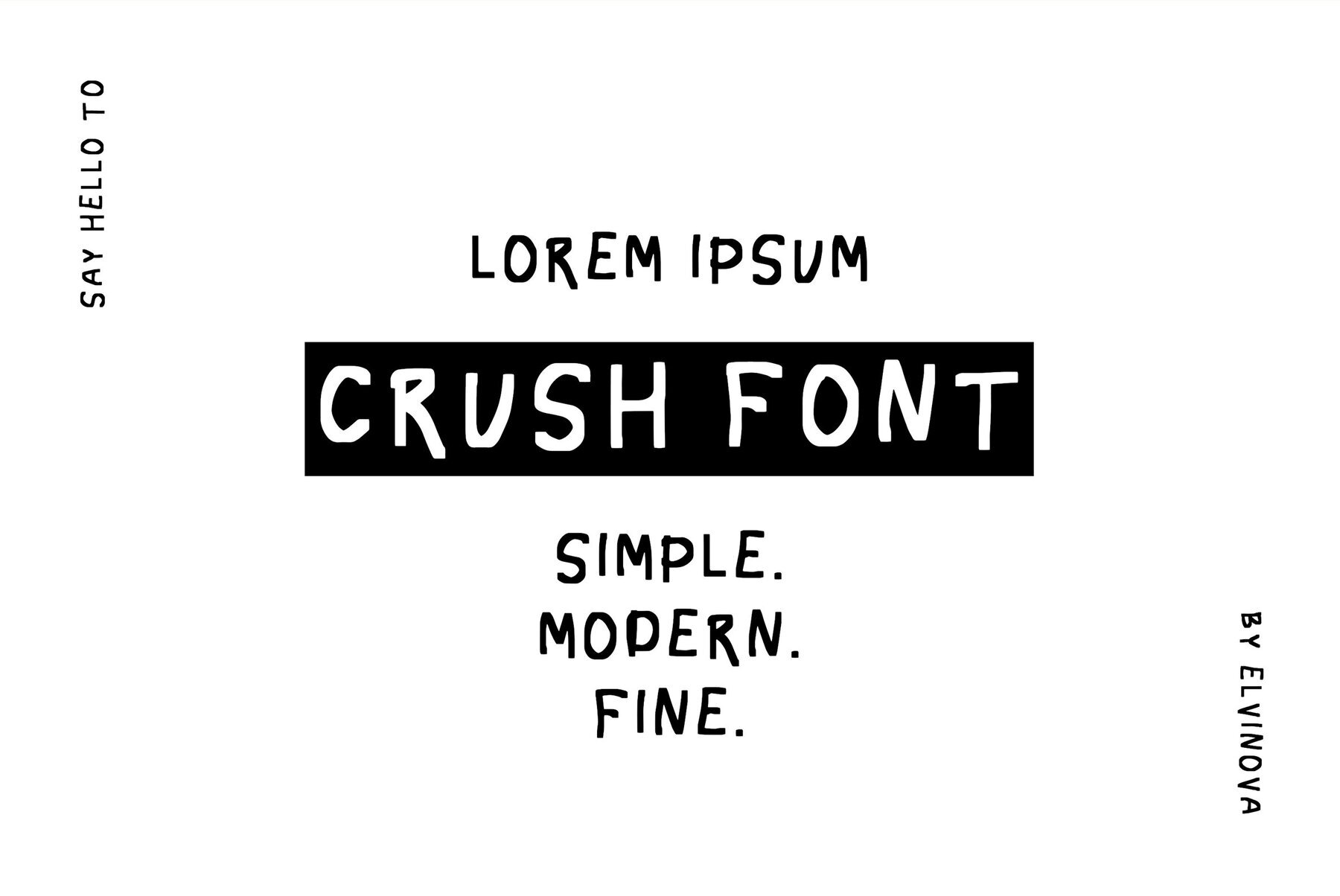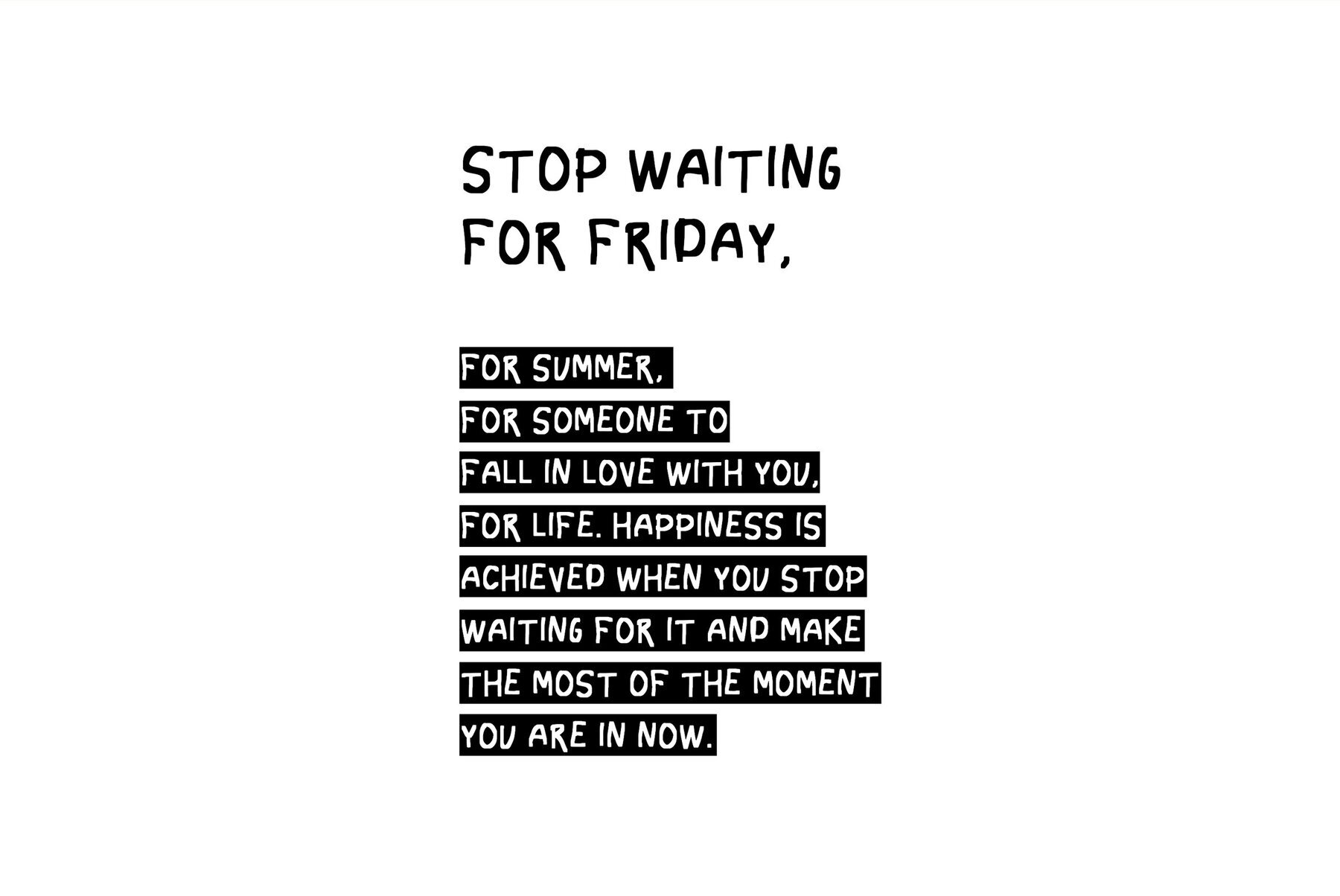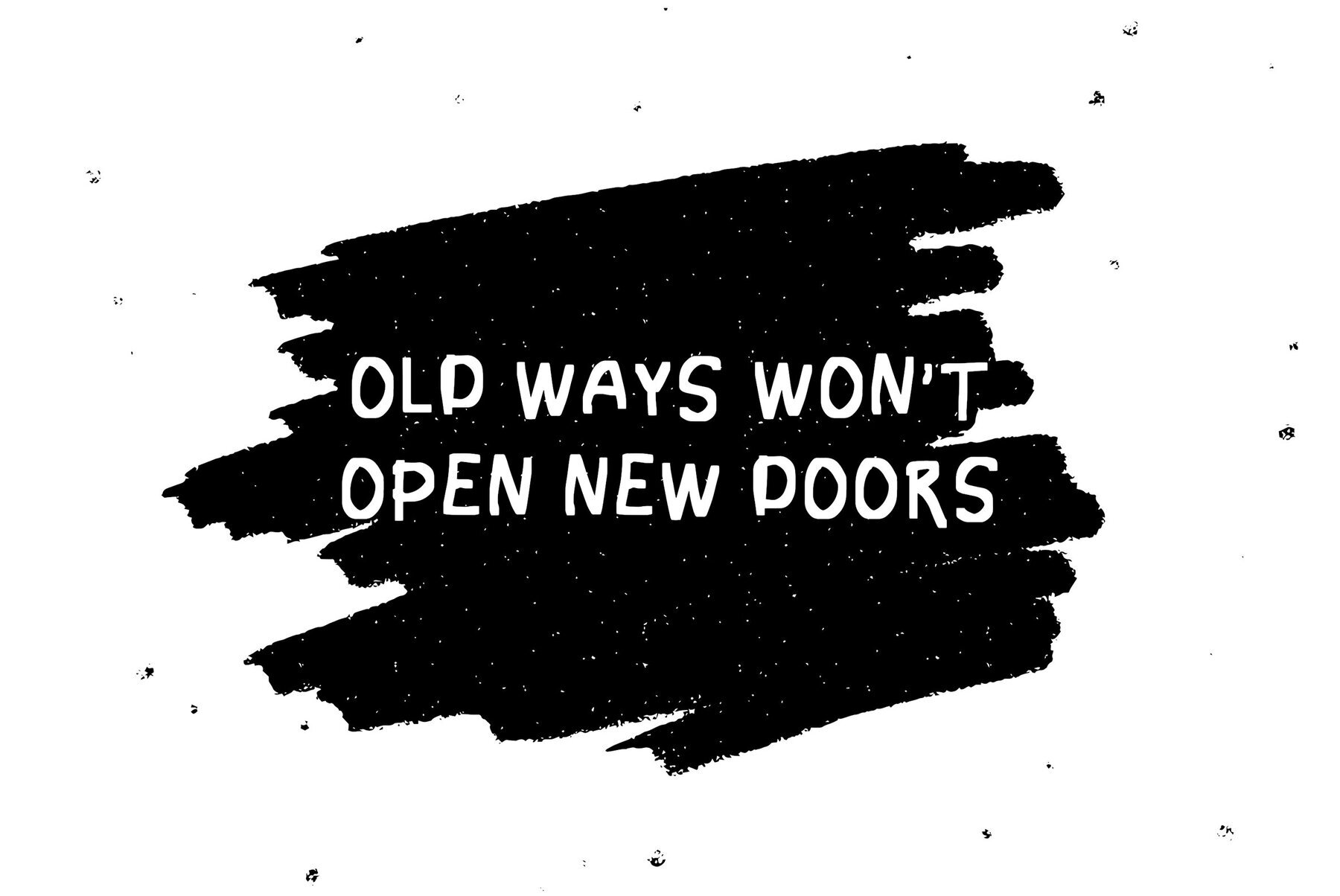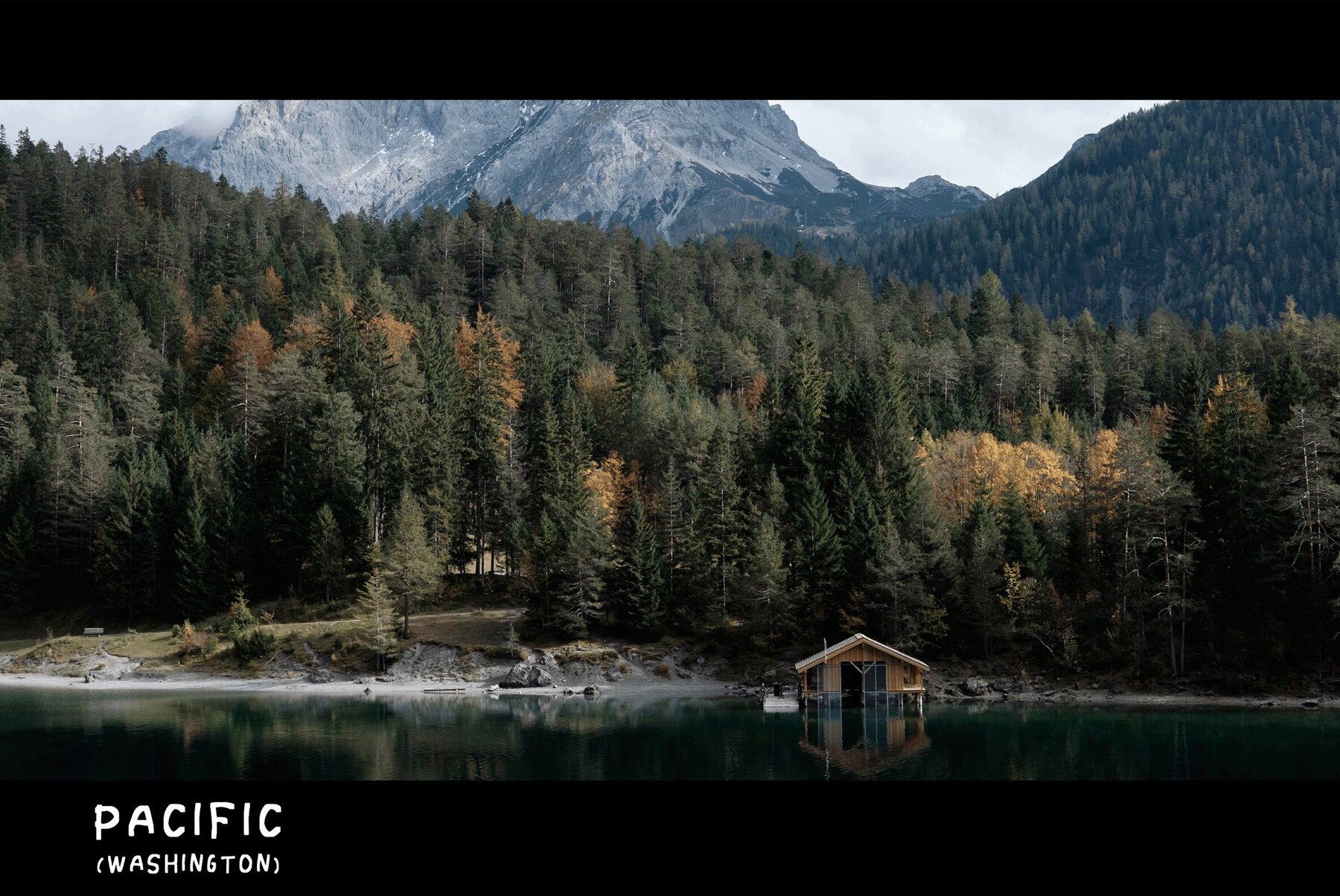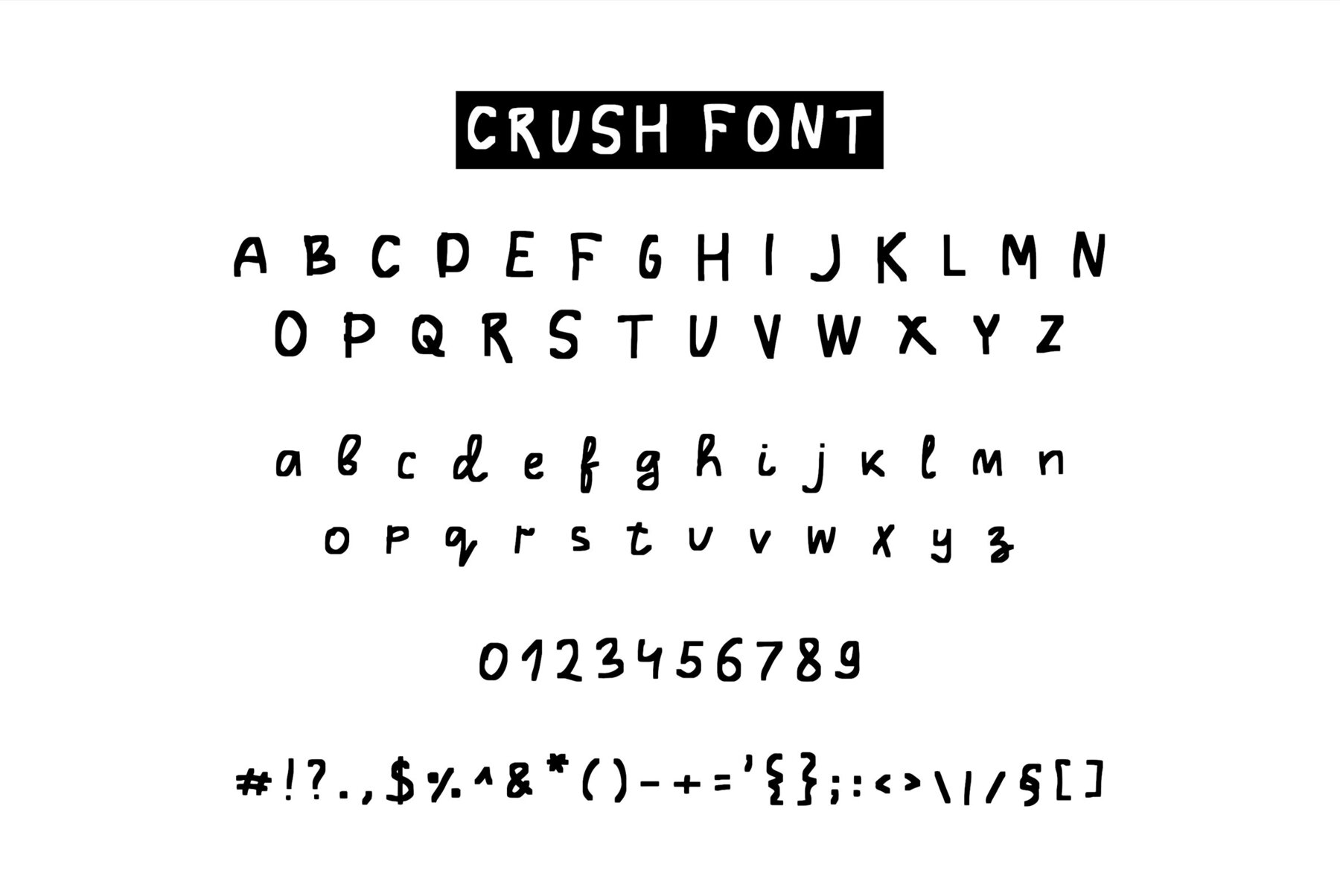
Crush Font
Crush Font Regular
Crush by Elvinova offers a simple and refined hand-lettered brush aesthetic ideal for headlines, titles, quotes, and branding.Crush: The Hand-Lettered Brush Font for Versatile Applications